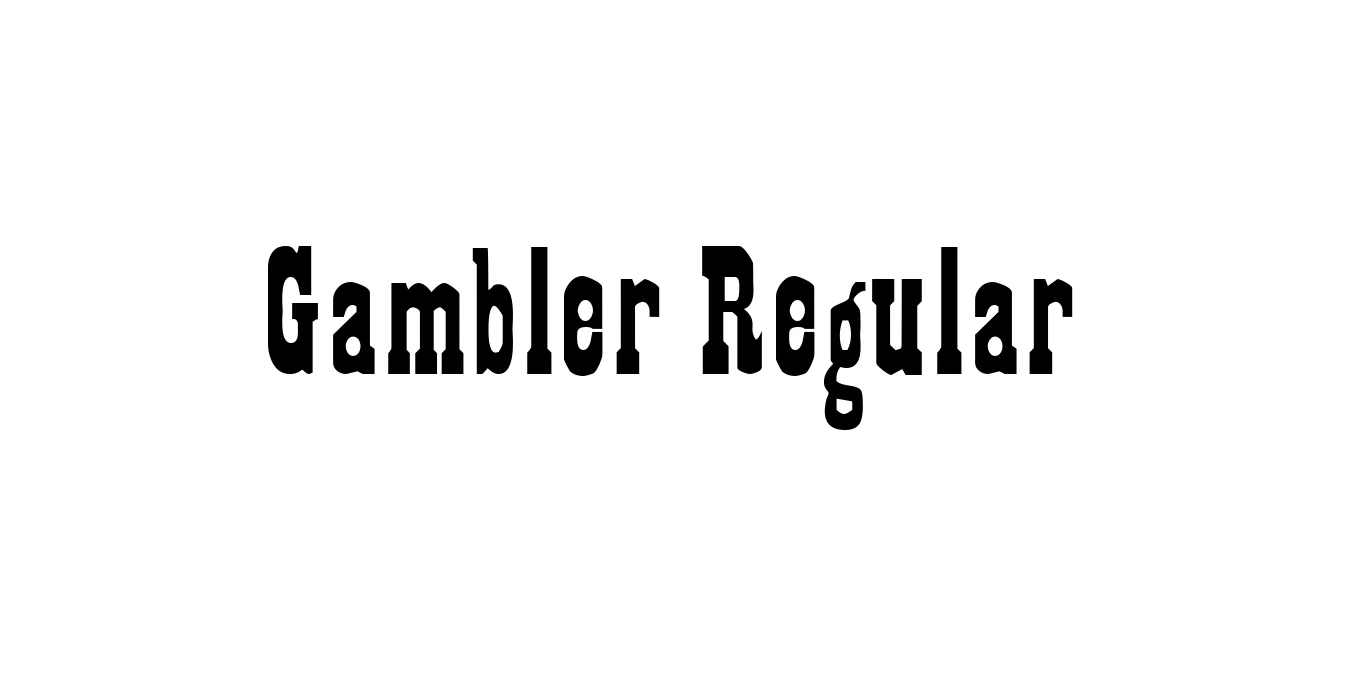
Gambler Regular
Designed by Galdino Otten
Gambler Regular is a distinctive display typeface that captures the essence of classic Americana and vintage signage. Designed with a bold, hand-lettered aesthetic, it features sweeping curves and strong strokes that evoke a sense of mid-century nostalgia. Its character set is built to stand out, making it an excellent choice for projects that require a touch of personality and traditional craftsmanship.
Historically, this typeface draws inspiration from the high-stakes world of old-school poker rooms and western saloons. The Regular weight offers a balanced visibility that works well in both physical print and digital interfaces. Whether used for branding or editorial headlines, the font maintains a rugged yet refined appearance that resonates with audiences looking for an authentic, retro-inspired visual identity.
Gambler Regular Best Uses
Perfect for creating bold, vintage-style brand identities.
Highly effective for eye-catching headlines in event posters.
Adds an authentic retro feel to artisanal product labels.
Ideal for t-shirt graphics and sports-themed merchandise.